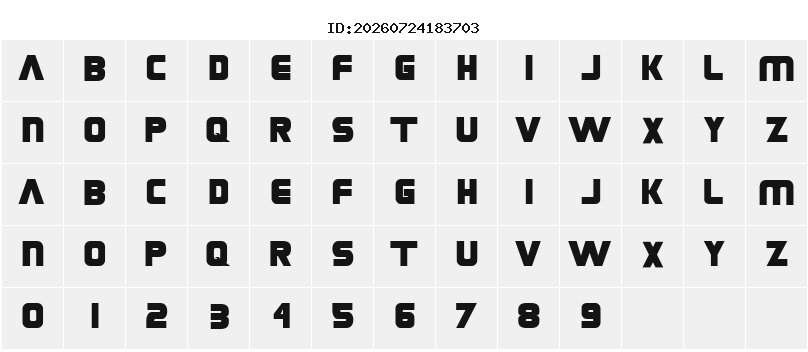
Grungerocker Preview
• Font Name: Grungerocker
• Full Font Name: Grungerocker
About Grungerocker.ttf
Grungerocker.ttf is a modern, elegant sans-serif font designed for ultimate readability and visual harmony. Perfect for branding, headlines, web design, and print materials.